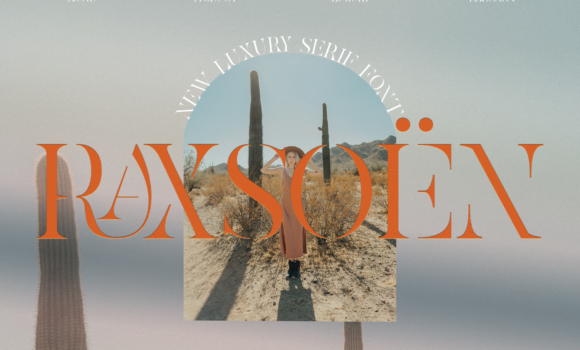
Raxsoen Font – Free Download Introduction to Raxsoen Font Raxsoen is an elegant and distinct serif font. 📸 Preview Gallery 6 images 📌 Product Name Raxsoen Font 👤 Author Luhop Creative 📂 Category Explore ⬇️ Download Raxsoen Font FREE Free